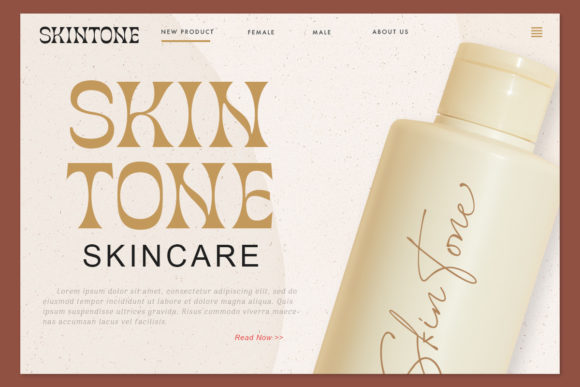
Garten House Font: Elevate Your Crafting Ideas with Style
Are you looking for a font that can add a touch of sophistication and elegance to your crafting projects? Look no further than Garten House Font. This cool and sophisticated display font is perfect for a wide range of crafting ideas, from cards to branding, labels, and more. In this article, we’ll explore the features and benefits of Garten House Font and show you how to use it to take your crafting projects to the next level.
What is Garten House Font?
Garten House Font is a modern display font designed to add a touch of elegance and sophistication to your crafting projects. Its clean lines, subtle curves, and balanced proportions make it perfect for a wide range of applications, from cards and invitations to branding and labels.
One of the standout features of Garten House Font is its versatility. It can be used in a variety of contexts, from formal and professional to informal and playful. Whether you’re creating a wedding invitation, a business logo, or a social media graphic, Garten House Font is sure to make a lasting impression.
Key Features of Garten House Font
- Clean and Sophisticated Design: Garten House Font features a clean and sophisticated design that is perfect for a wide range of crafting projects.
- Versatile: This font can be used in a variety of contexts, from formal and professional to informal and playful.
- Easy to Read: Garten House Font is designed to be easy to read, even at small sizes.
- High-Quality: This font is designed to deliver high-quality results, with crisp and clear lines that will make your crafting projects stand out.
Benefits of Using Garten House Font
So why should you choose Garten House Font for your crafting projects? Here are just a few benefits of using this amazing font:
- Elegance and Sophistication: Garten House Font adds a touch of elegance and sophistication to your crafting projects, making them perfect for special occasions and professional applications.
- Versatility: This font can be used in a wide range of contexts, from formal and professional to informal and playful.
- High-Quality Results: This font delivers high-quality results, with crisp and clear lines that will make your crafting projects stand out.
Tips and Tricks for Using Garten House Font
Here are a few tips and tricks to help you get the most out of Garten House Font:
- Experiment with Different Sizes: Garten House Font looks great at a variety of sizes, from small and delicate to large and bold.
- Play with Color: Garten House Font looks great in a wide range of colors, from classic black and white to bold and bright hues.
- Combine with Other Fonts: Garten House Font pairs well with other fonts, so don’t be afraid to experiment with different combinations.
- Use it for Branding: Garten House Font is perfect for branding projects, from logos to business cards.
Garten House Font is a cool and sophisticated display font that is perfect for a wide range of crafting ideas. Its clean lines, subtle curves, and balanced proportions make it perfect for cards, branding, labels, and more. With its versatility, ease of use, and high-quality results, Garten House Font is a must-have for any crafter or designer.
- What is Garten House Font?: Garten House Font is a modern display font designed to add a touch of elegance and sophistication to your crafting projects.